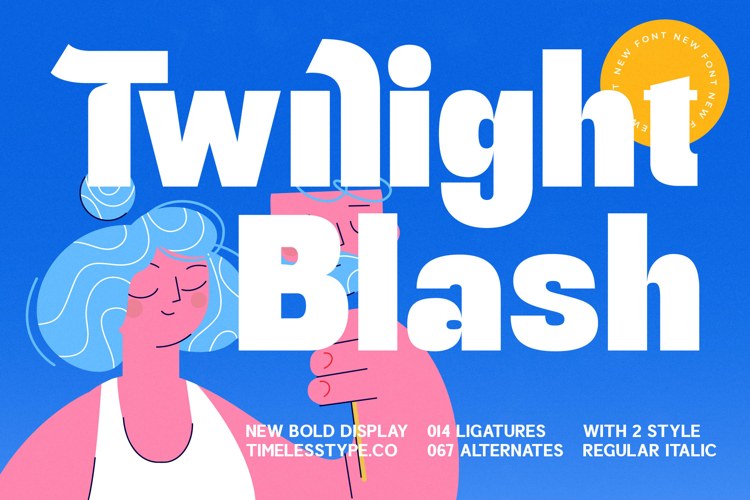
Twilight Blash - New Bold Display Font
Discover the transformative power of Font Twilight Blash - New Bold Display Font Sans Serif, a truly captivating typeface designed to make an unforgettable impression. This modern display sans serif commands attention with its robust weight and subtly crafted letterforms, ensuring your message stands out boldly. Its distinctive presence is perfect for projects demanding both clarity and a touch of unique character, setting new standards for visual communication.
Unleash unparalleled creative freedom with Font Twilight Blash - New Bold Display Font Sans Serif, engineered for exceptional versatility. Featuring an array of 014 sophisticated ligatures and 067 extensive alternates, designers can customize text to achieve a truly bespoke aesthetic. The clean lines and inviting curves blend seamlessly, offering a harmonious yet dynamic appearance suitable for diverse design requirements and enhancing overall visual appeal.